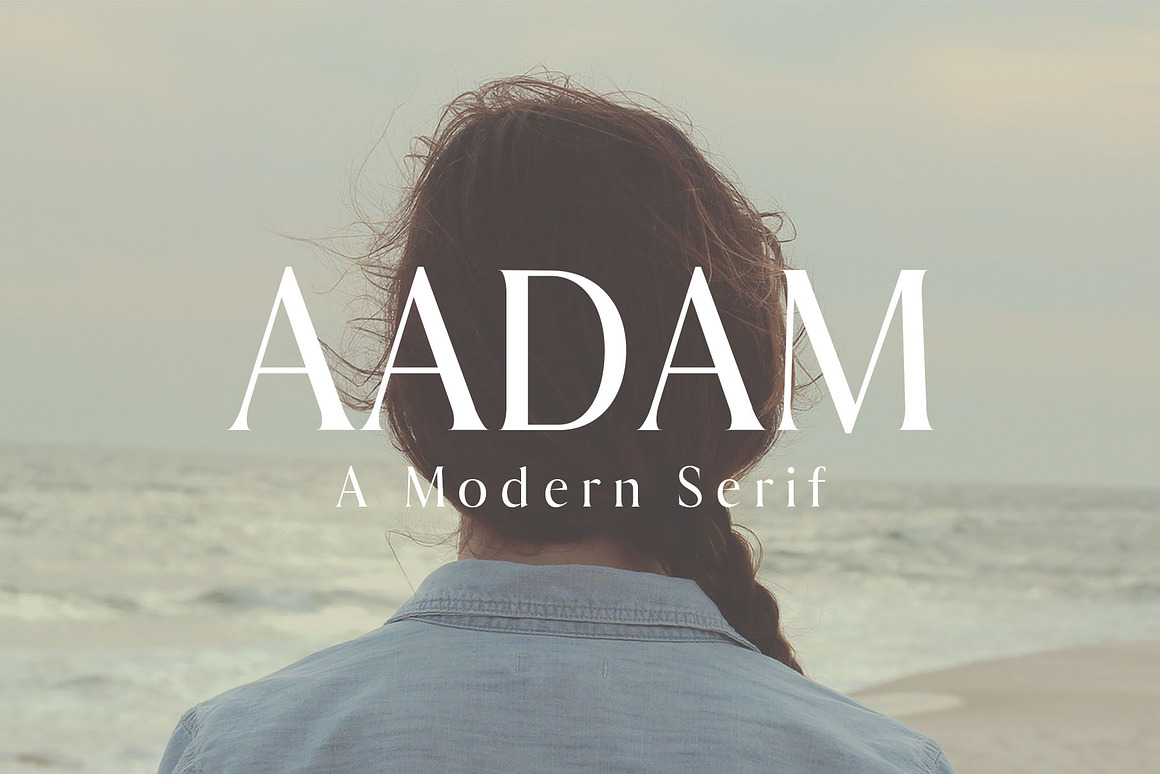
Aadam A Modern Serif Font Family
This contemporary typeface is perfect for fashion magazines, luxury brands, modern websites, architectural firms, design studios, premium advertising, contemporary art galleries, sophisticated packaging, and cutting-edge editorial projects.
What makes this font exciting is its modern serif innovation combined with contemporary elegance, offering designers a forward-thinking typeface that captures progressive sophistication while delivering exceptional versatility and avant-garde typographic appeal.
The Aadam Modern Serif font family includes thin, light, regular, medium, semibold, bold, and black variations, providing complete contemporary design solutions for creating innovative modern visual identities.
Whether you're developing cutting-edge brand experiences or crafting contemporary editorial systems, Aadam A Modern Serif Font Family Free Download brings exceptional modern sophistication and innovative authenticity to every application. This progressive typeface combines traditional serif foundations with contemporary design innovation, creating letterforms that feel both familiar and revolutionary. The font's modern construction and innovation-ready details make it perfect for brands seeking immediate contemporary recognition.
Aadam A Modern Serif Font Family features carefully engineered contemporary styling with authentic modern character that conveys genuine design innovation. Each weight has been optimized for different modern applications, with precisely balanced proportions and refined serif details that enhance the progressive aesthetic. The font's contemporary qualities make it particularly effective for fashion brands and design applications.
Professional designers choose Aadam A Modern Serif Font Family for projects requiring authentic contemporary credibility and modern atmosphere. Its innovative heritage makes it exceptionally well-suited for design agencies, fashion houses, and progressive lifestyle brands. The font's versatile weight system allows designers to create sophisticated modern hierarchies, from subtle contemporary elegance to bold innovative authority.
The complete Aadam A Modern Serif Font Family package offers extensive contemporary character sets and advanced OpenType features that enhance the modern aesthetic. Advanced typography controls allow designers to create complex innovative effects with multiple weight combinations. This comprehensive modern toolkit ensures designers have everything needed to create authoritative contemporary communications that celebrate the perfect fusion of traditional craftsmanship and progressive design thinking.